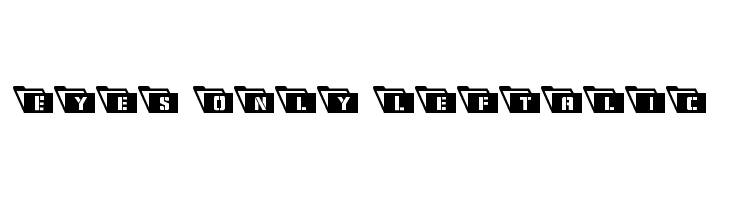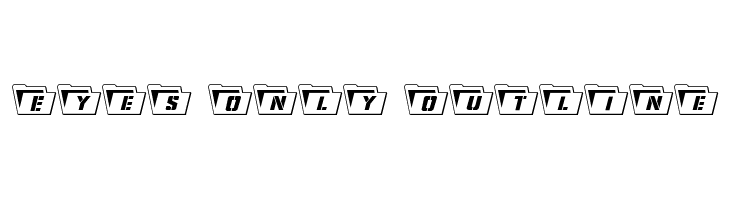
A bold, tech-inspired font with characters in folder-like outlines.
A bold, 3D outline font with a futuristic and dynamic style.
A bold, condensed font with characters enclosed in folder-like outlines, offering a playful and modern style.
A modern, italicized font with bold characters enclosed in folder-like outlines.
A bold, outlined, condensed, and left-italicized font with a folder-like design.
A modern, italicized font with bold folder-like outlines and medium contrast.
A bold, 3D geometric font with left-leaning shadows for a dynamic, modern look.
A bold, futuristic font with slanted characters enclosed in a folder-like outline.
A bold, 3D outline font with a shadowed, rotated effect.
A modern, folder-themed font with bold, semi-condensed characters.